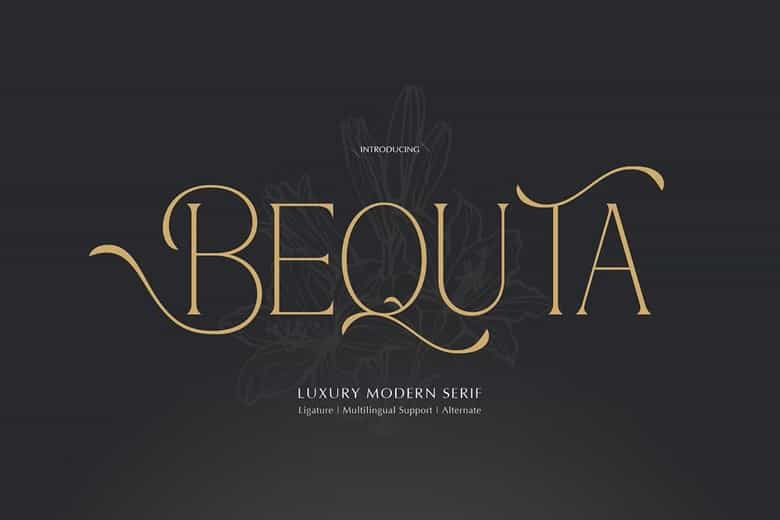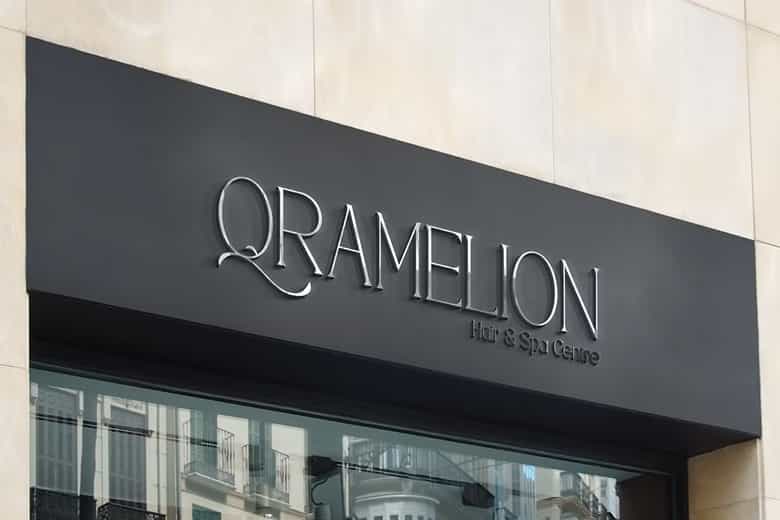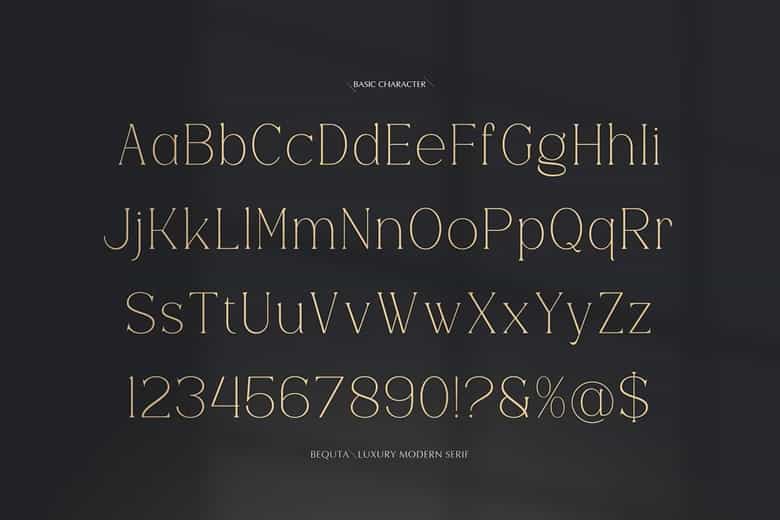
Bequita is a modern serif font, full of elegance, stylish shapes and finesse, which is exactly what Bequita represents. This font was created with a fashion, branding and high end editorial in mind; it incorporates classic serif bones with a beautiful flourish that looks to die for on logos, invitations, packaging anything that needs high end finery and refinement.